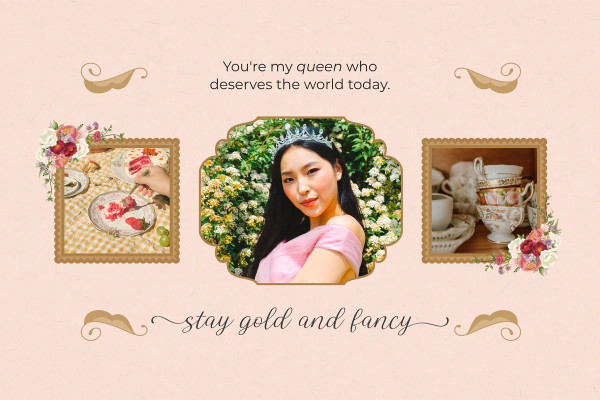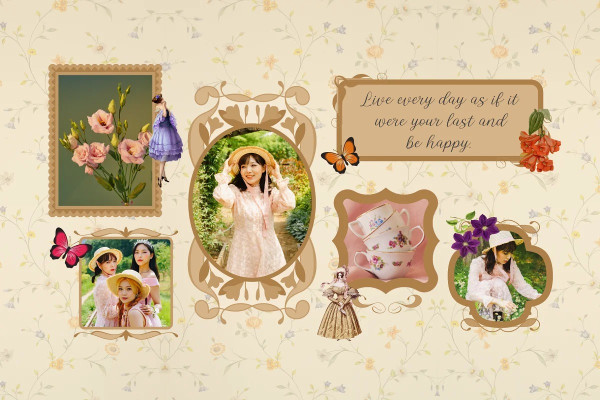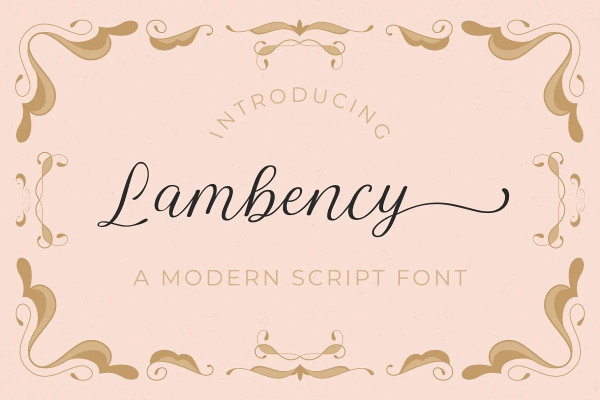
Lambency Font
Lambency Font is a modern script font with an elegant and natural touch with an initial tail and ending tail . This font is perfect for wedding invitations, quotes, branding, logos, etc.